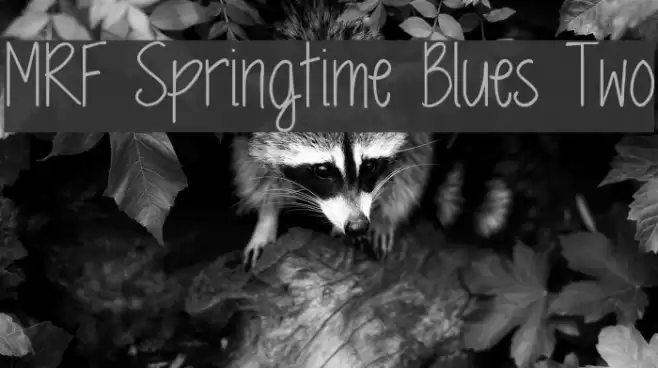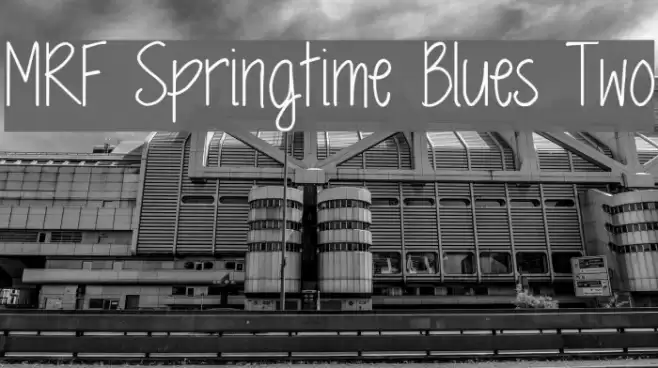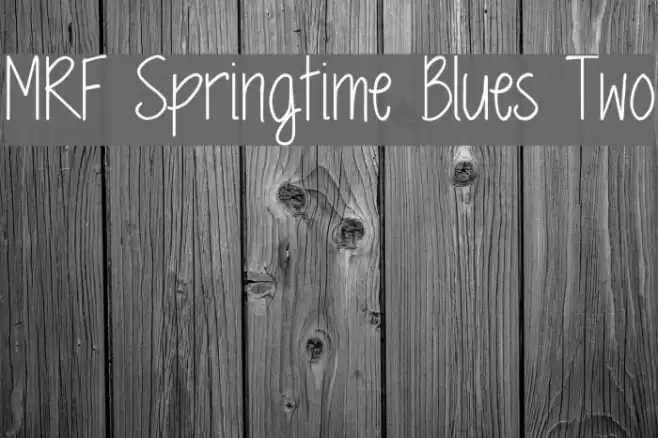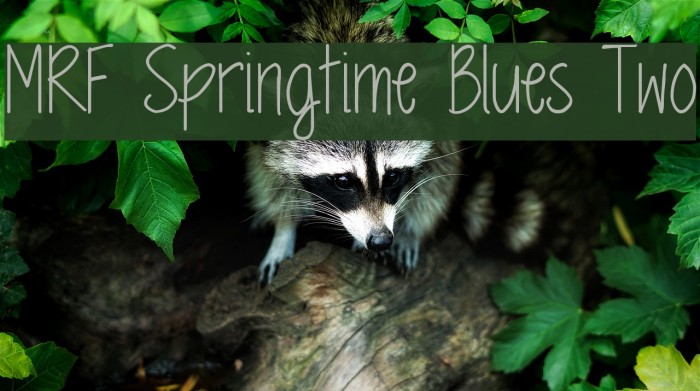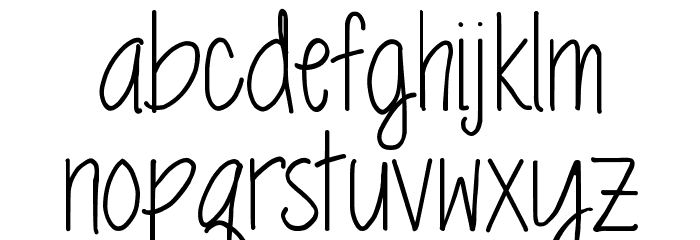
MRF Springtime Blues Two Font
MRF Springtime Blues Two Description
This font features a playful and casual handwritten style, characterized by its tall and narrow letterforms. The strokes are consistent in width, giving it a uniform appearance, while the slightly irregular lines add a touch of whimsy and personality. The uppercase letters are bold and prominent, while the lowercase letters maintain a friendly and approachable feel. Numbers and special characters are designed to match the overall aesthetic, ensuring cohesion across all text elements. This font is perfect for projects that require a personal and informal touch, such as greeting cards, invitations, and playful branding.
A playful, handwritten font with tall, narrow letterforms and consistent stroke width from Uncategorized fonts.
- Proposed Projects: Ideal for greeting cards, invitations, playful branding, and informal communications.
- Overall Style: Casual, Playful
- Use Case: Headlines, Informal text, Branding